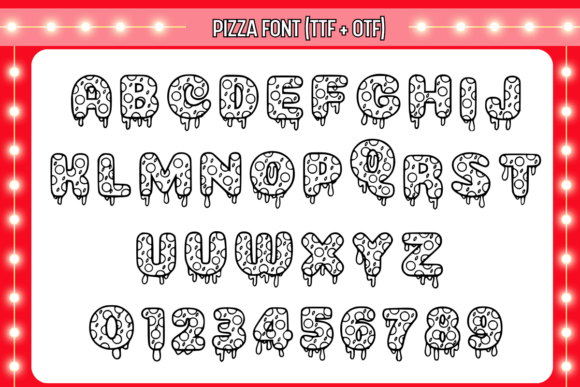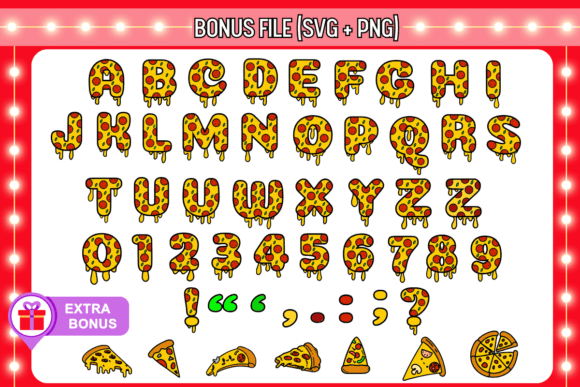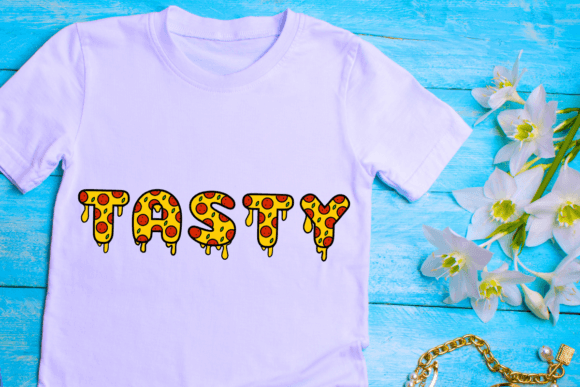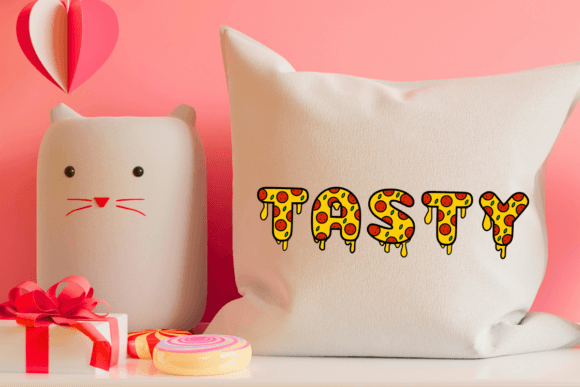
Introduction to Pizza Font
“Pizza” is a fun and creative font where each letter is made out of pizza.
The letters look like they are topped with cheese, sauce, and other tasty ingredients, giving the text a playful and delicious appearance Perfect for food-related designs.